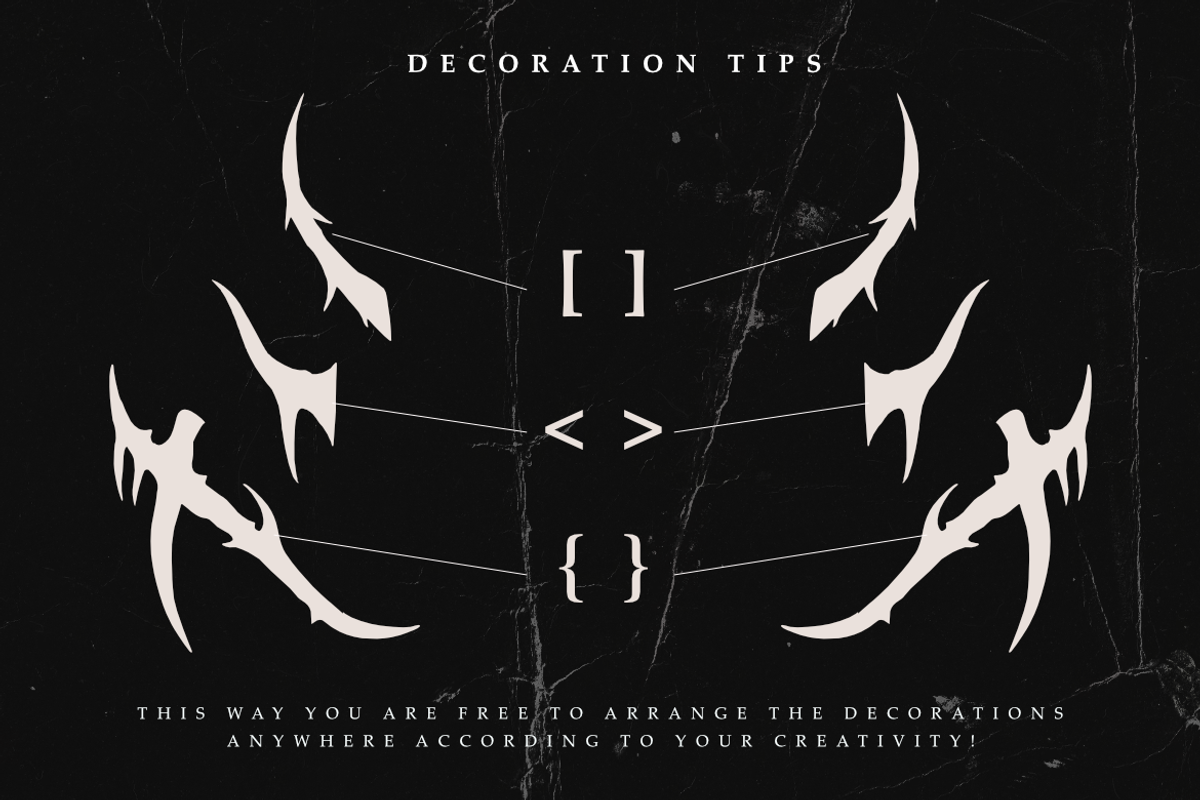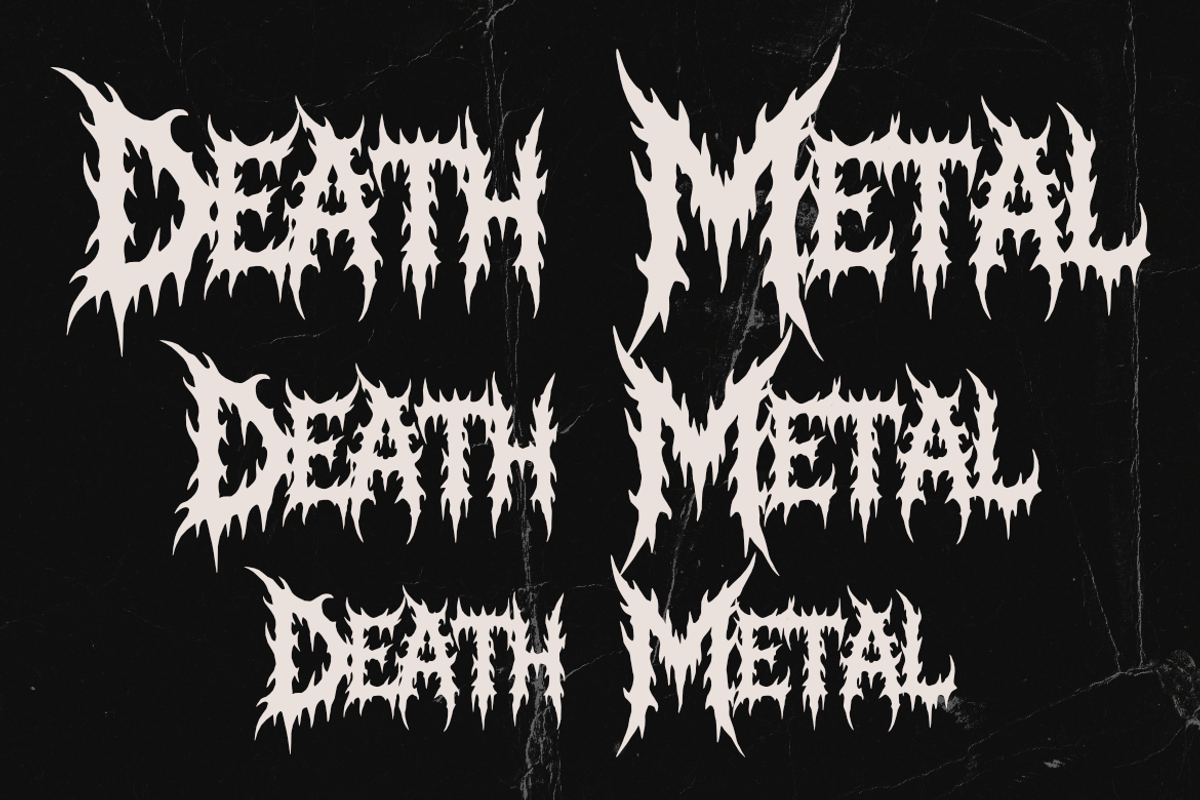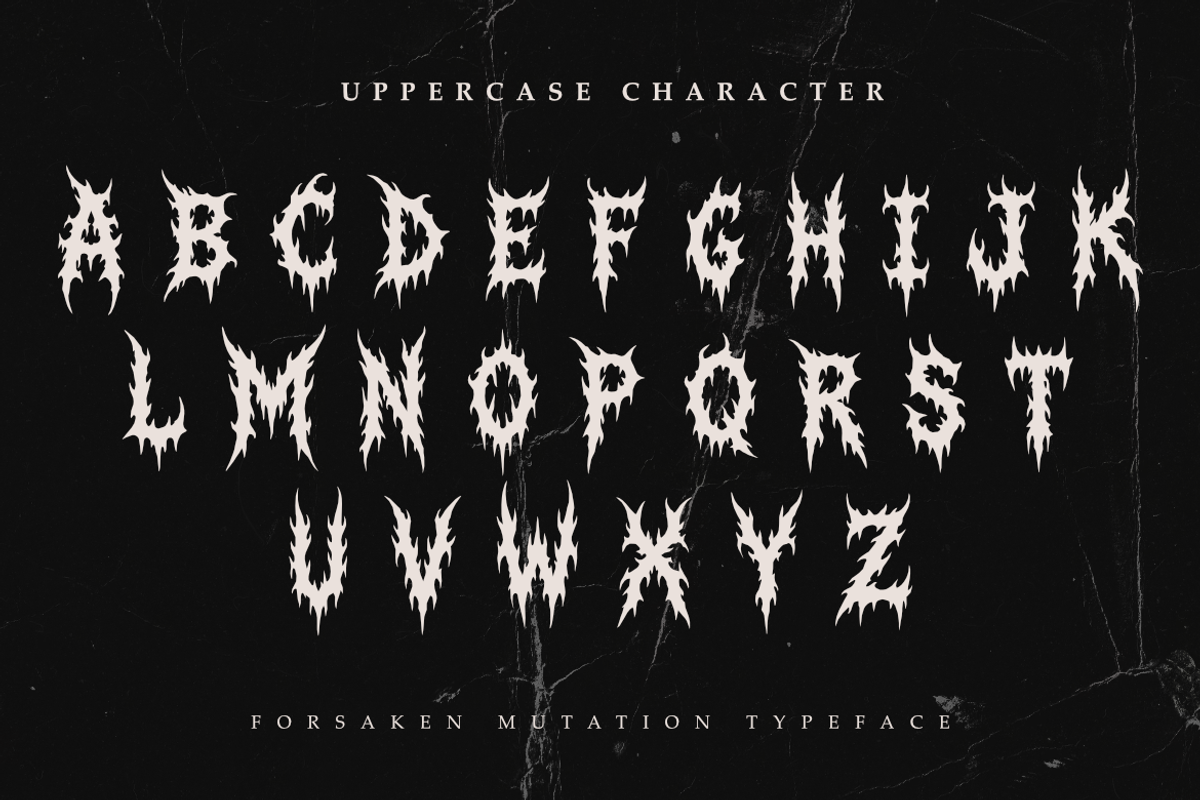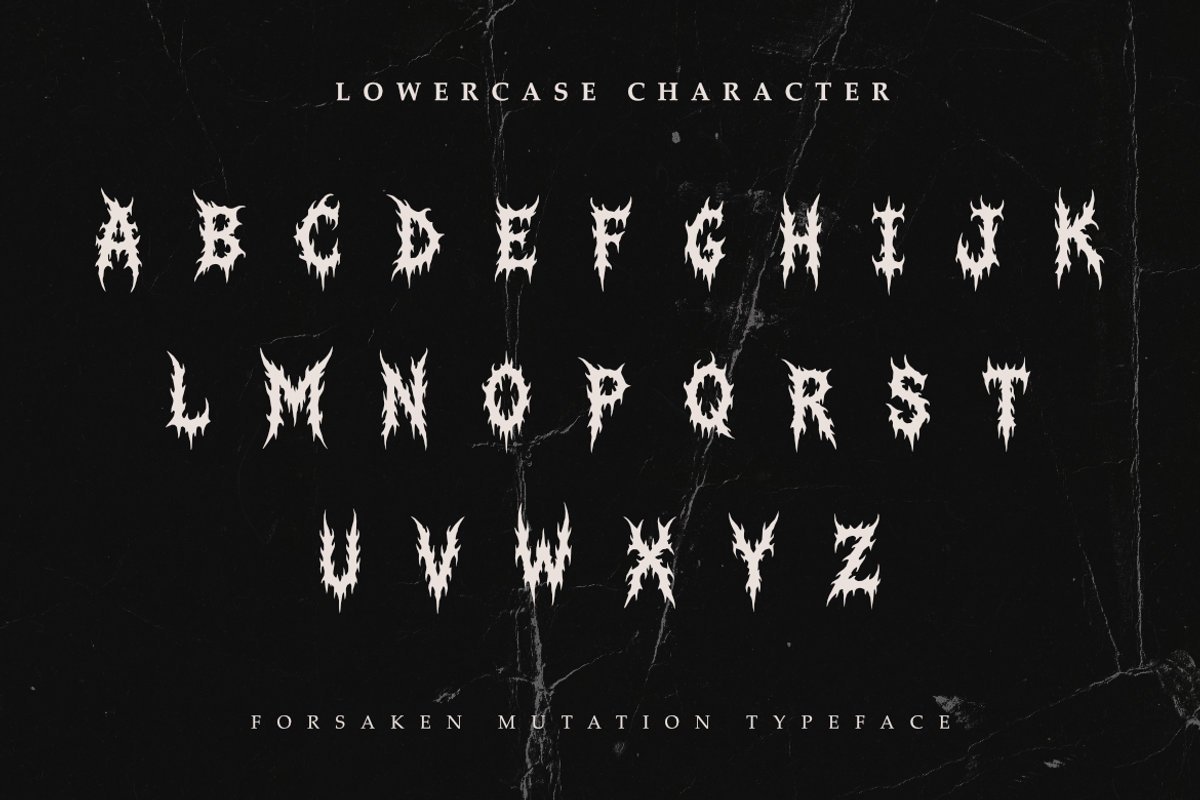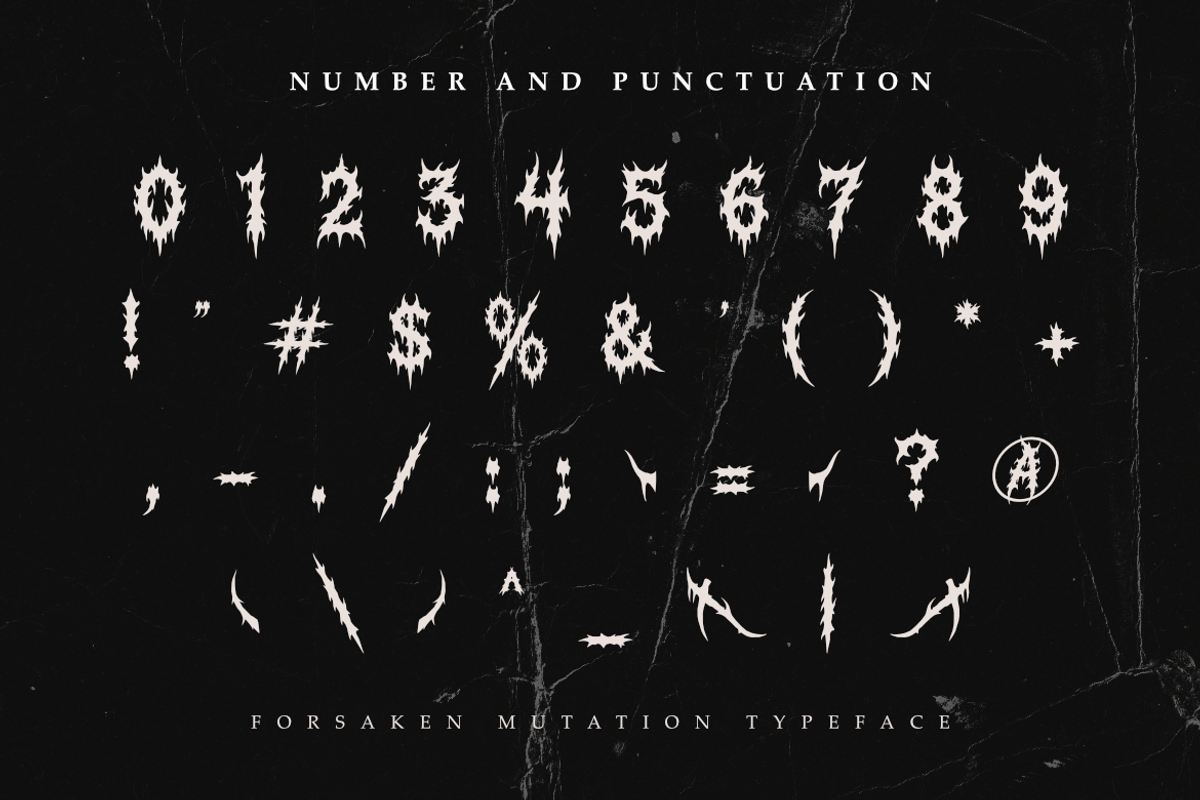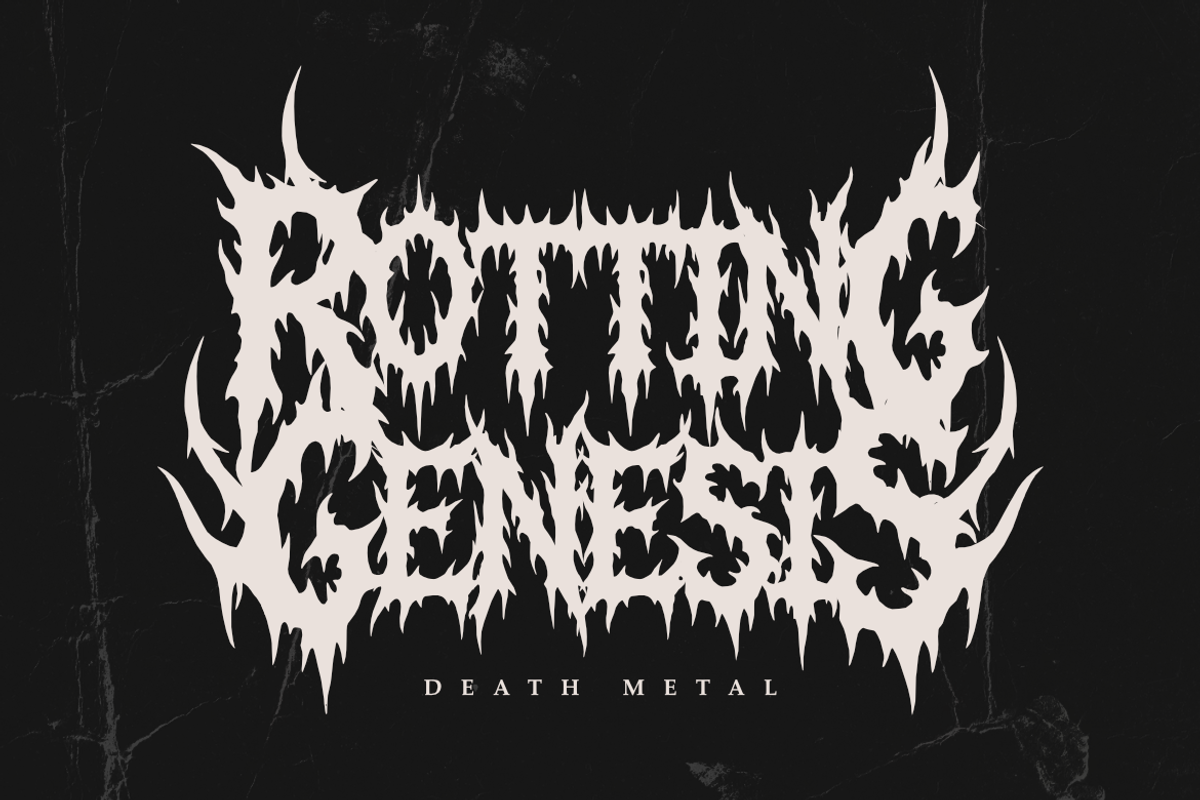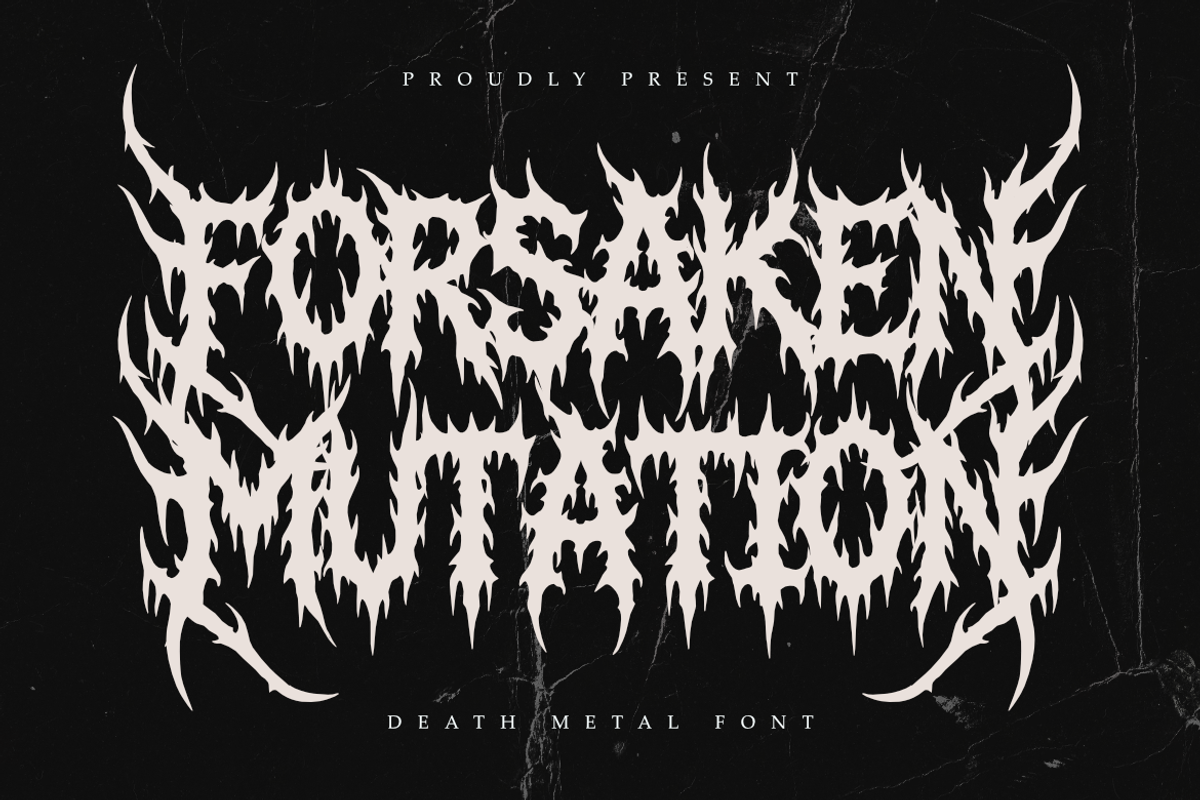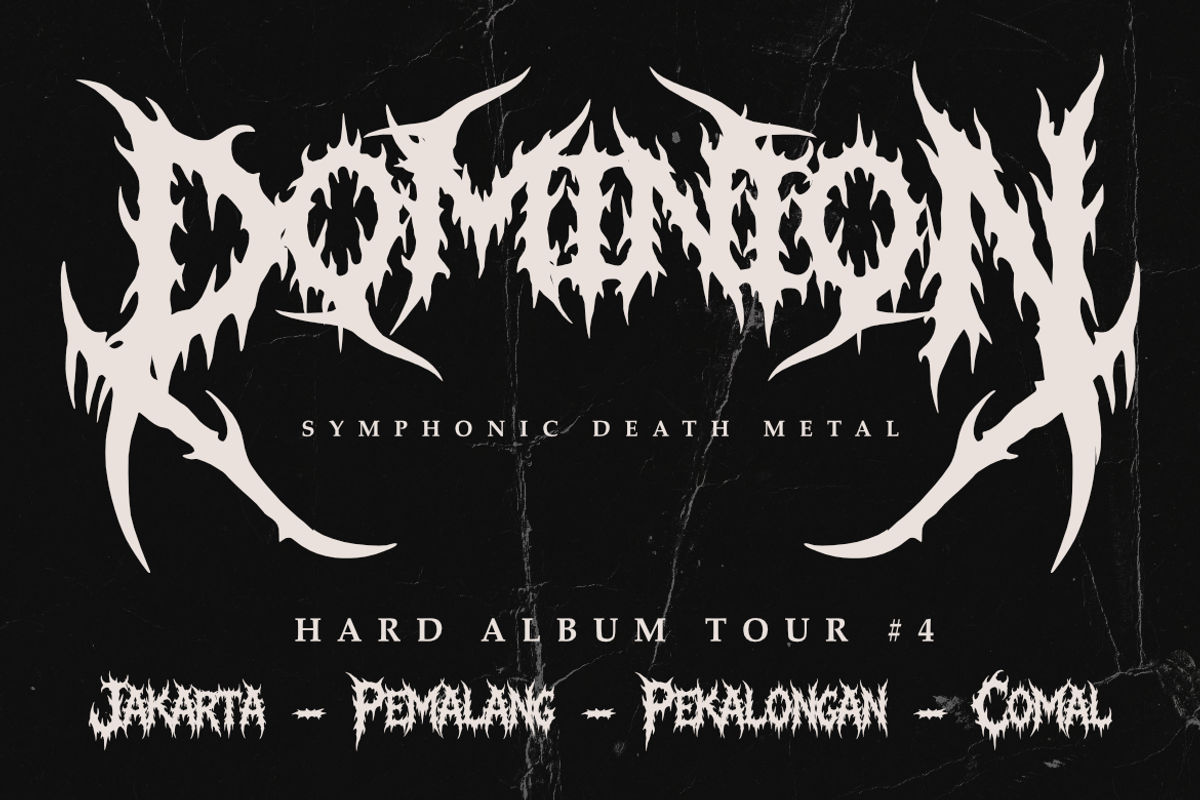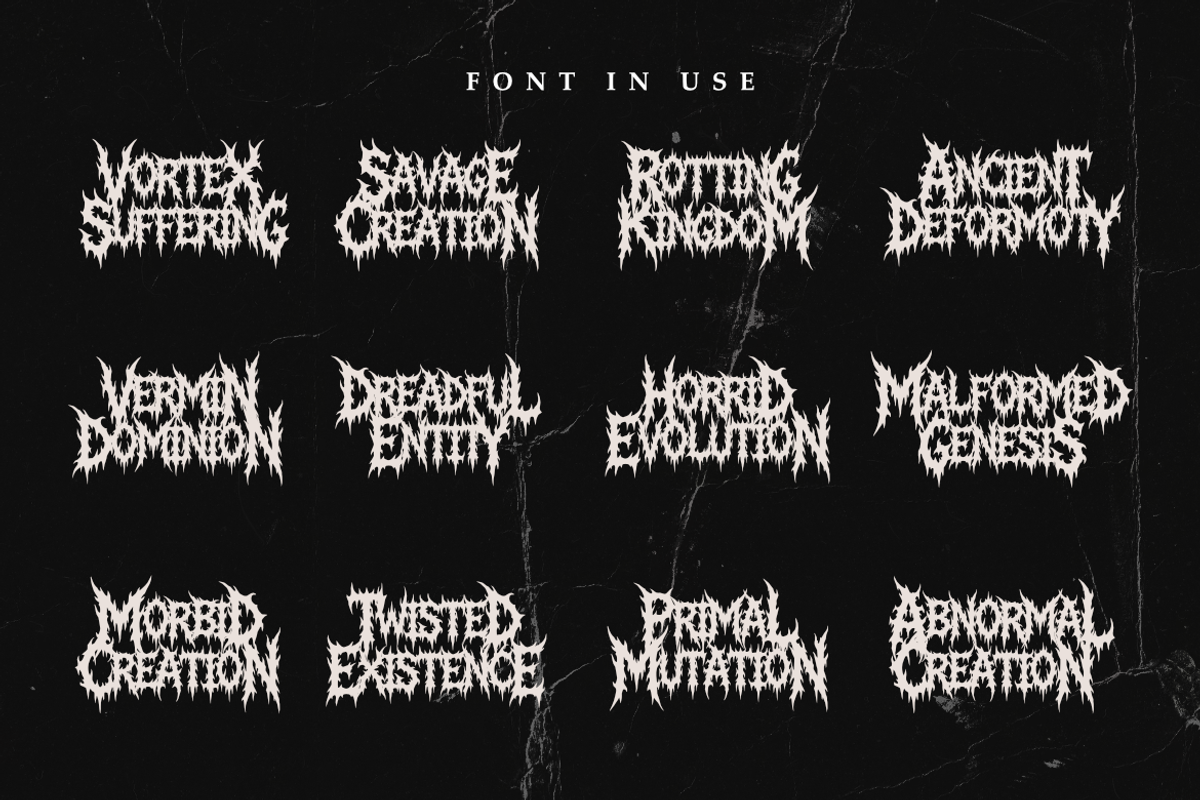
Forsaken Mutation | Death Metal Font
Forsaken Mutation | Brutal Death Metal Font
Elevate your extreme design projects with Forsaken Mutation, a sophisticated death metal font meticulously crafted for precision and impact. Blending the raw, chaotic energy of underground music with clean, professional lines, Forsaken Mutation provides a premium edge to your visual identity.
Whether you are building a brand for a streetwear label, designing immersive album layouts, or creating polished promotional materials, this font delivers a sharp, professional finish. Its aggressive curves and organic mutated silhouettes ensure that your message commands attention in both digital and print environments.
Perfect for high-impact headlines and professional branding.